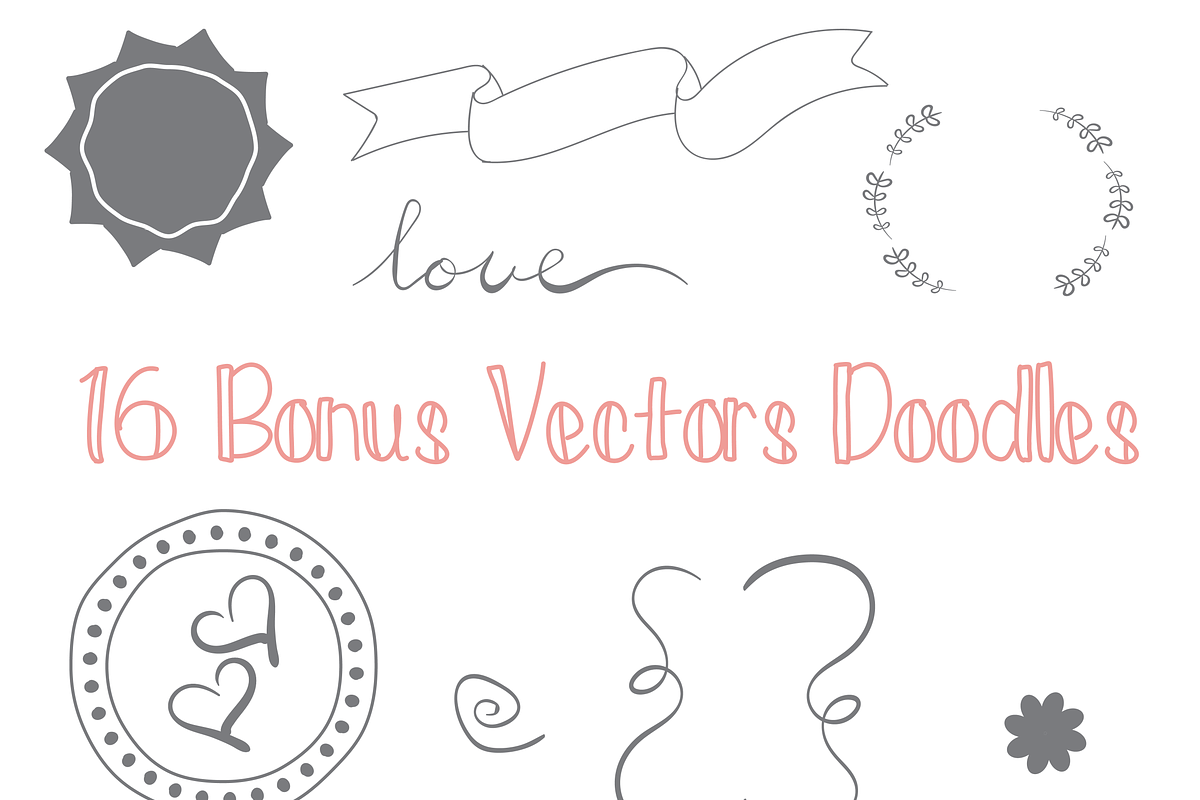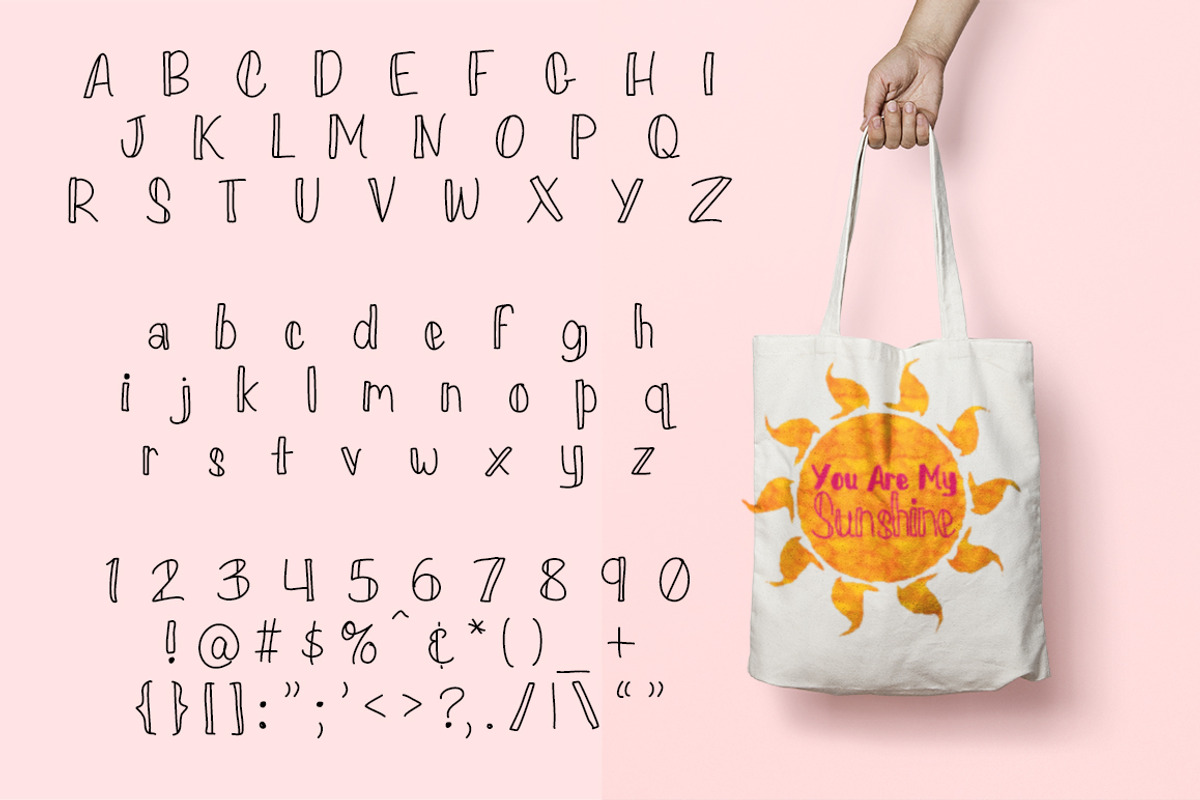
Loverly Font Family
Loverly Font Family by Phat Happy Life is a font selected for branding, posters, packaging, typography.
- Includes 16 bonus doodles to decorate your new designs.
Why Loverly Font Family is worth a look
Loverly Font Family by Phat Happy Life fits naturally into Branding, posters, packaging, typography.